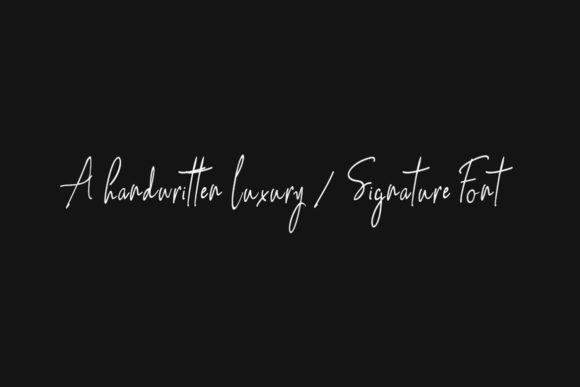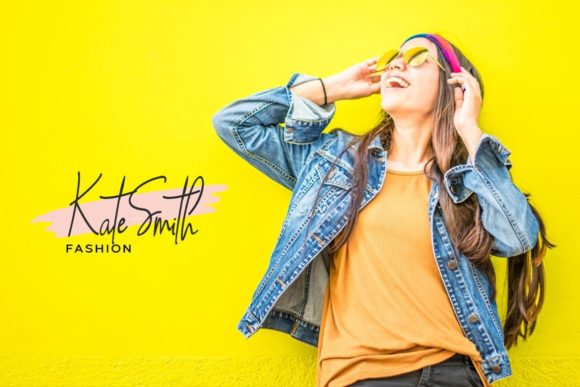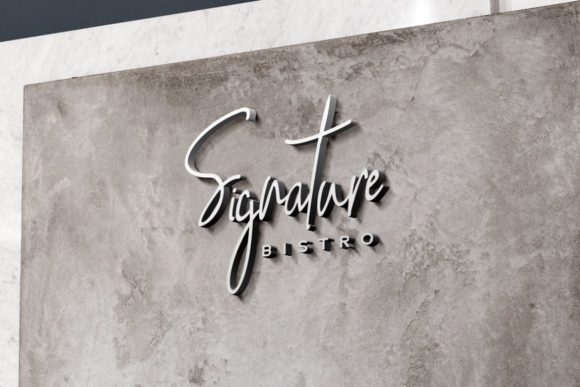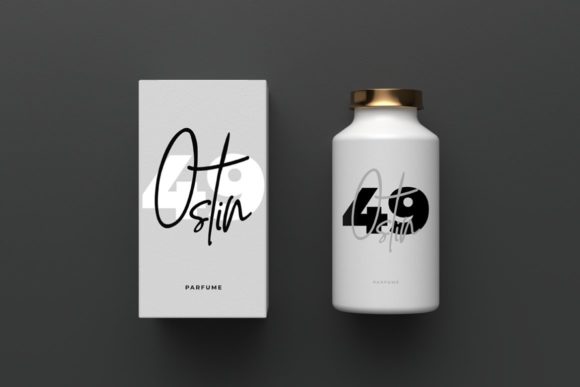
Introducing Bertha Castel Font: Elevate Your Designs with Elegance
Bertha Castel Font is a breathtakingly beautiful handwritten font that has taken the design world by storm. Crafted with precision and passion, this stunning font is designed to make your creations stand out from the crowd and leave a lasting impression. Whether you’re a seasoned designer or a crafty DIY enthusiast, Bertha Castel Font is the perfect addition to your typography arsenal.
The Story Behind Bertha Castel Font
Bertha Castel Font is the brainchild of a talented type designer who sought to create a unique and captivating handwritten font. With a keen eye for detail and a deep understanding of typography, the designer has carefully crafted each letterform to exude elegance, sophistication, and a touch of playfulness. The result is a font that is both visually stunning and remarkably versatile.
What Makes Bertha Castel Font So Special?
Bertha Castel Font boasts a range of characteristics that set it apart from other fonts. Here are just a few reasons why this font has become a favorite among designers and crafters:
- Unique Letterforms: Each letter in Bertha Castel Font has been carefully designed to showcase a distinctive, handwritten feel. The font features a range of subtle imperfections and variations, giving it a delightfully organic and human touch.
- Exceptional Legibility: Despite its ornate appearance, Bertha Castel Font remains remarkably legible, even at small sizes. This makes it perfect for use in a variety of applications, from headings and titles to body text and quotes.
- Versatile Style: Bertha Castel Font is incredibly versatile, making it suitable for a wide range of design projects. Whether you’re creating wedding invitations, branding materials, or social media graphics, this font is sure to impress.
How to Use Bertha Castel Font in Your Designs
Bertha Castel Font is an incredibly versatile font that can be used in a variety of design applications. Here are a few ideas to get you started:
- Wedding Invitations: Add a touch of romance and elegance to your wedding invitations with Bertha Castel Font. Its beautiful, flowing letterforms are perfect for capturing the magic of your special day.
- Branding and Packaging: Use Bertha Castel Font to create stunning branding materials, such as logos, business cards, and product labels. Its unique style is sure to help your brand stand out from the competition.
- Social Media Graphics: Elevate your social media graphics with Bertha Castel Font. Whether you’re creating quotes, promotions, or announcements, this font is sure to grab attention and leave a lasting impression.
Tips and Tricks for Getting the Most Out of Bertha Castel Font
To help you get the most out of Bertha Castel Font, here are a few tips and tricks:
- Experiment with Colors: Bertha Castel Font looks stunning in a range of colors, from rich jewel tones to soft pastels. Don’t be afraid to experiment and find the perfect color to match your brand or design.
- Mix and Match: Combine Bertha Castel Font with other fonts to create a unique and eye-catching typography combination. Its versatility makes it easy to pair with a range of font styles.
- Pay Attention to Spacing: To ensure optimal legibility, pay attention to spacing and kerning when using Bertha Castel Font. A little extra space can go a long way in making your text look beautiful and easy to read.